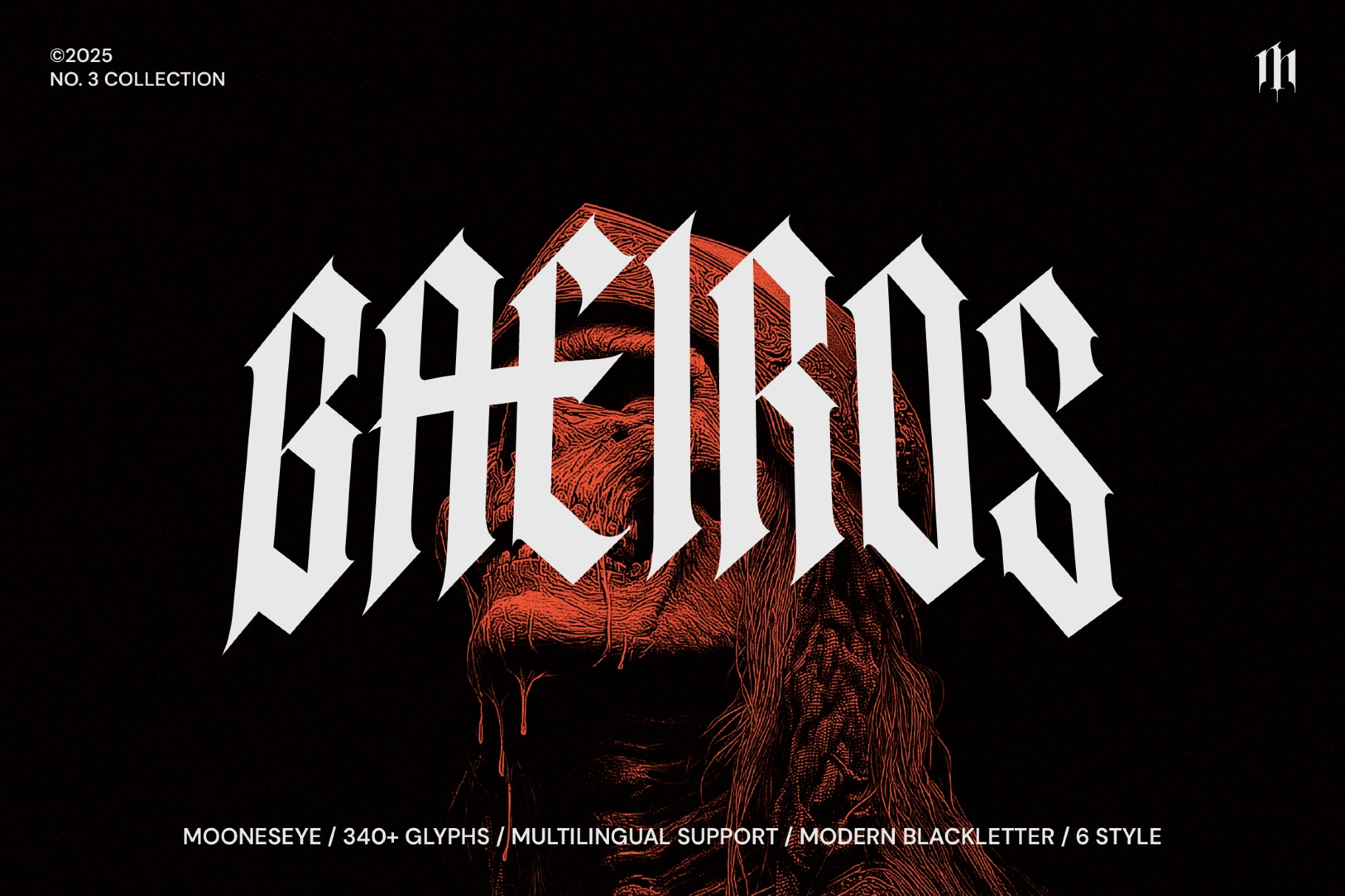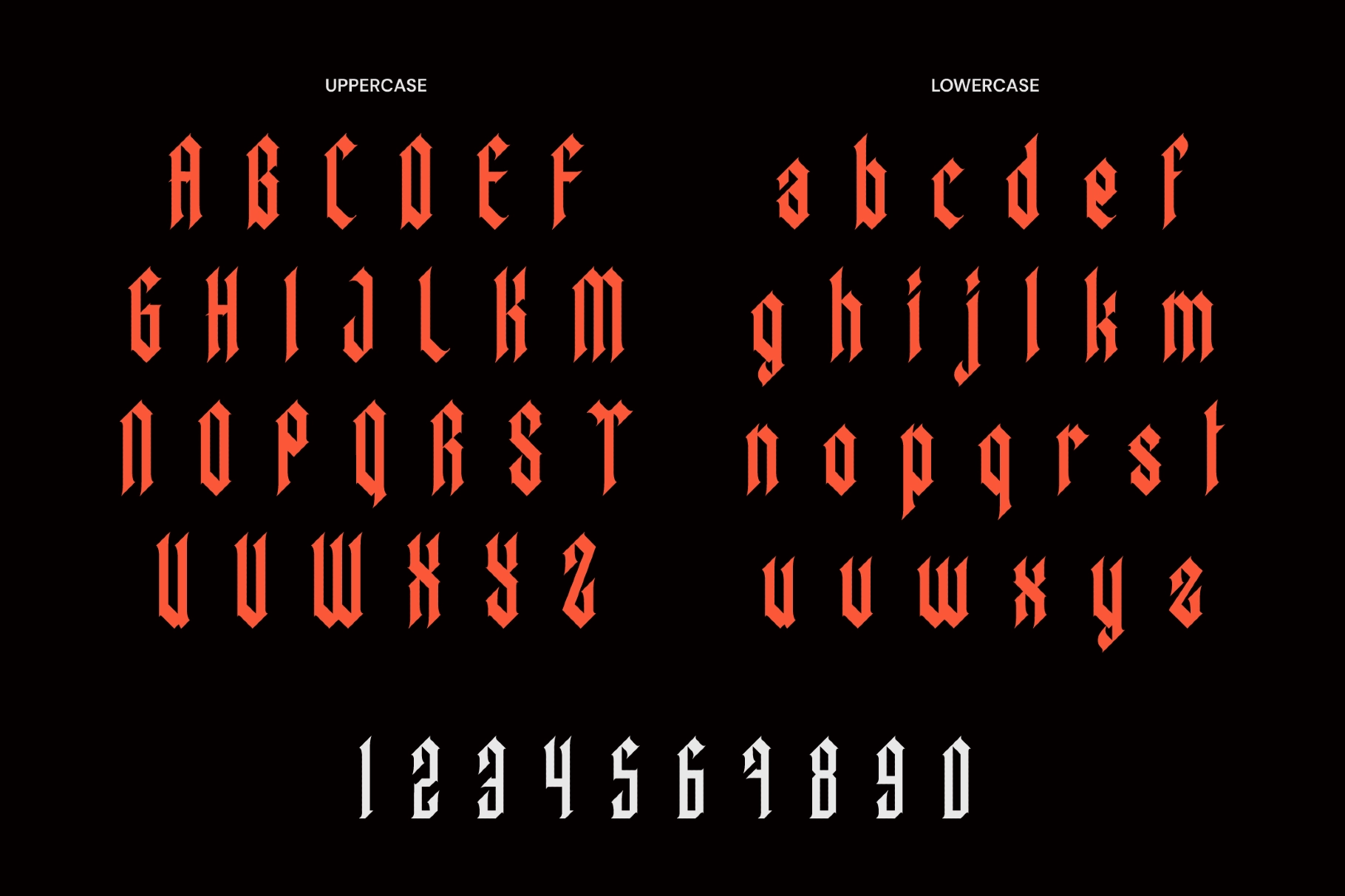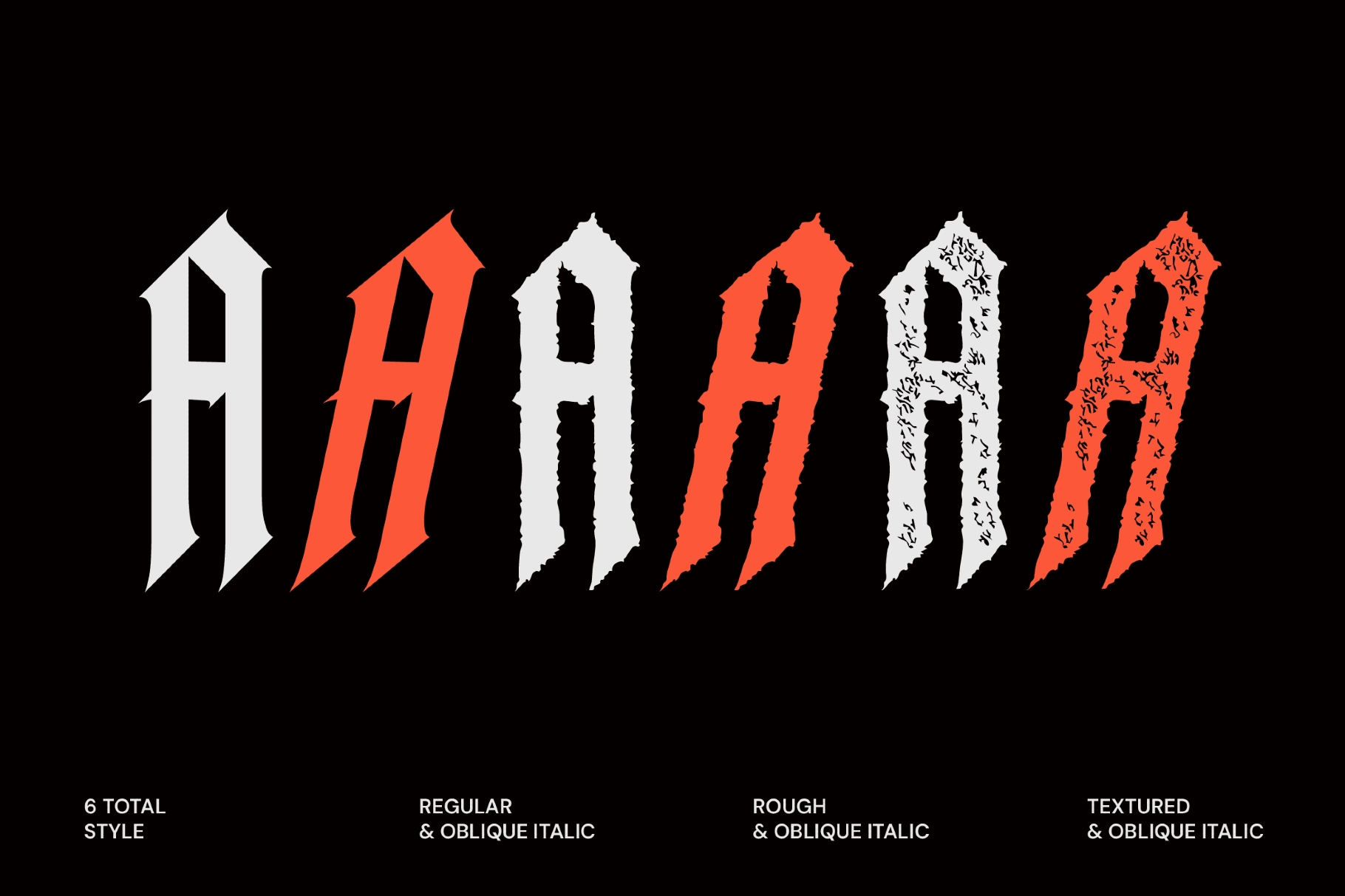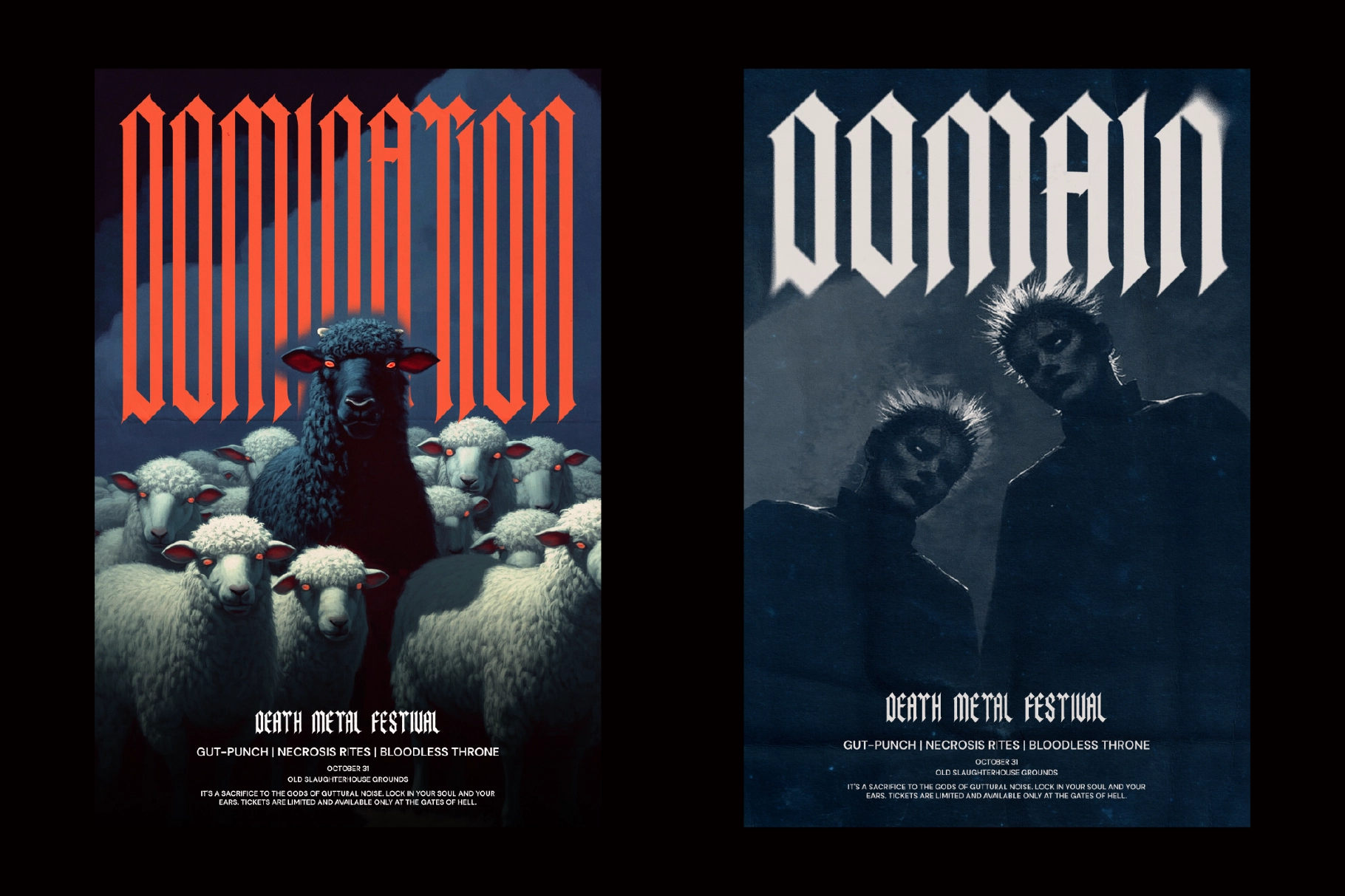
Baeiros - Modern Blackletter Font Family
Baeiros is a blackletter font family rooted in the angular geometry of Fraktur, tightened into a condensed display construction with sharp wedge terminals and extreme vertical stroke contrast. The three surface variants — clean Regular, eroded Rough, and ink-saturated Texture — each come with an oblique italic, giving the family six distinct voices that can coexist in a single layout without breaking visual register.
The letterforms hold their authority at headline scale: narrow proportions stack the type into tight columns, and the high-contrast strokes read with the same graphic weight as hand-screened concert posters or hand-cut zine layouts. Baeiros covers a full uppercase and lowercase set, so it works across headline, subhead, and logotype applications without defaulting to all-caps. Use it for metal show posters, tattoo studio branding, streetwear labels, craft spirit bottles, horror editorial headers, underground festival artwork, screen-printed merch, dark packaging, album art typography, and zine headlines.
- 6 styles: Regular, Regular Italic, Rough, Rough Italic, Texture, Texture Italic;
- uppercase & lowercase;
- numerals, punctuation & symbols;
- 340+ glyphs;